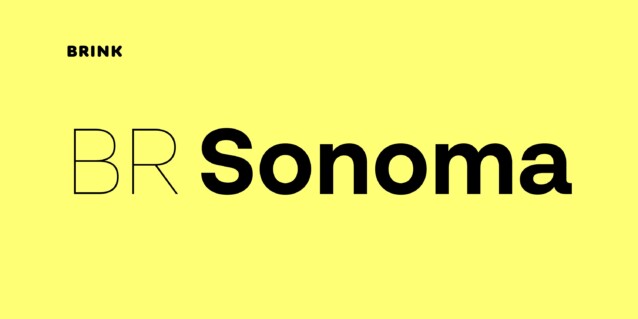
BR Sonoma Font Family
BR Sonoma Font is a geometric form-based sans serif font family crafted & designed by Brink. BR Sonoma builds on the foundations laid by the classic Swiss grotesques such as Helvetica and Univers but combines their features with a stronger geometric base usually found in other early classics such as Avant Garde, Futura and Avenir.